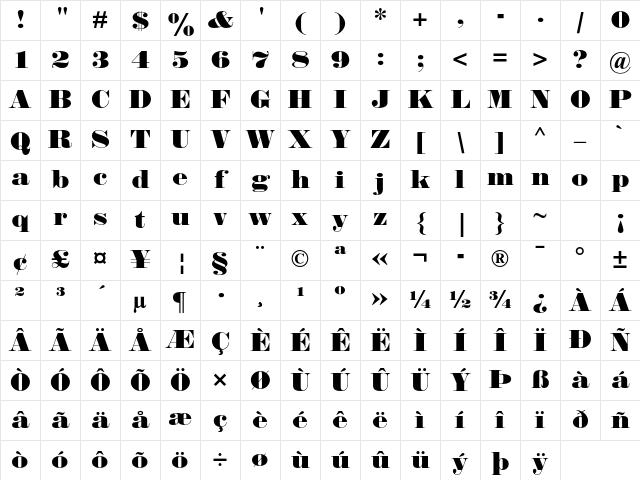
Falstaff MT Std Regular
Complete Falstaff MT Std Regular glyph index. Displaying only characters natively supported by Falstaff MT Std Regular font.
Design Context for Falstaff MT Std
Falstaff MT Std is a composed and adaptable typeface that performs quietly and consistently across a wide range of design contexts.
Pro Tip: Use Falstaff MT Std in both headline and body roles to test its range before committing to a single application.